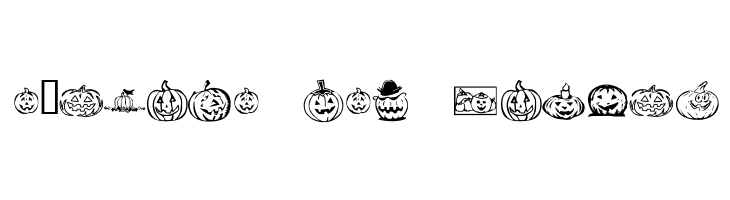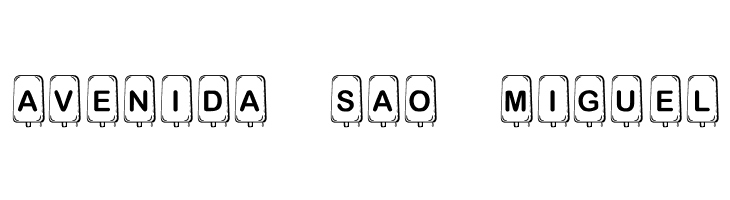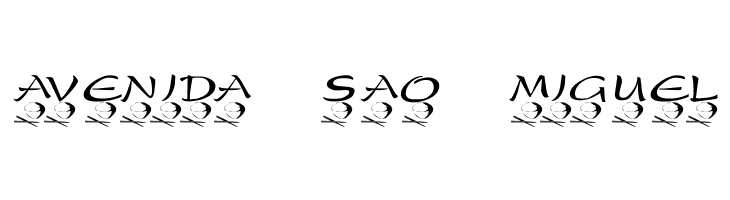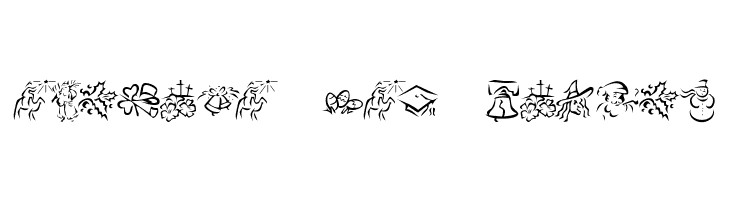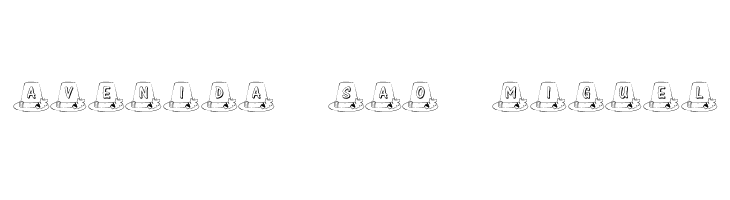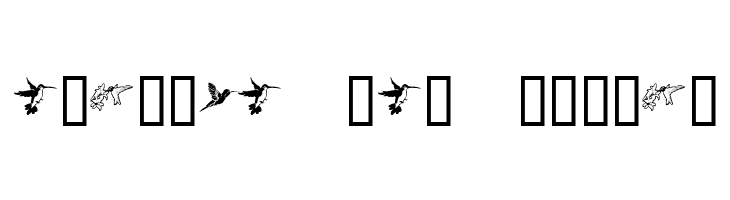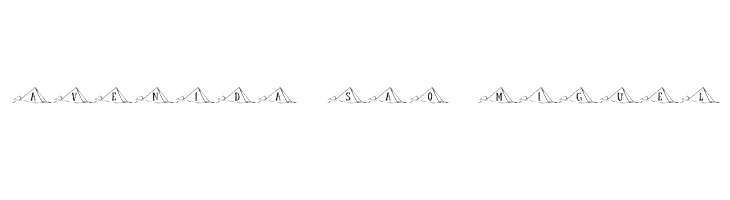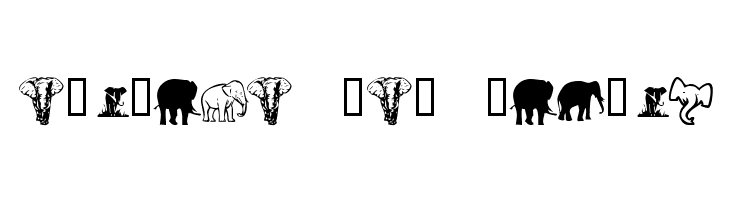
A decorative font with holiday-themed icons for various celebrations.
A Halloween-themed decorative font with pumpkin illustrations as glyphs.
A decorative font with letters inside pilgrim hats, perfect for festive projects.
A bold, shield-enclosed font with a heraldic style.
A playful font with characters inside popcorn boxes, perfect for fun and themed projects.
A playful font with letters inside popcorn buckets, perfect for entertainment themes.
A playful font with uppercase letters in popsicle-shaped outlines.
A playful font with characters encased in popsicle shapes, perfect for fun and creative projects.
A playful decorative font with letters inside pots of gold.
A playful decorative font with characters inside pots of gold.
A decorative font with letters inside crown motifs, perfect for regal-themed designs.
A decorative font with letters inside crown shapes, perfect for regal-themed projects.
A decorative font with letters embedded in pyramid-like designs.
A bold, decorative font with quilt-like patterns and serif elements.
A playful, chalkboard-style font with decorative square borders around each character.
A playful, decorative font with characters enclosed in textured squares, ideal for creative projects.
Elephant-themed decorative dingbat font with assorted illustrations.
A bold, playful font with characters enclosed in keycap-like shapes, offering a nostalgic yet modern appeal.
A decorative font with uppercase letters in nail polish bottle shapes.
A decorative font with star-like embellishments and bold characters.
A bold serif font with twinkling star embellishments, perfect for decorative use.
A decorative font featuring detailed hummingbird illustrations.
A decorative set of hummingbird illustrations for creative projects.
A decorative script font with scalloped frames around each character.
A playful, decorative font with rice bowl and chopstick motifs.
A decorative serif font with floral-bordered characters, ideal for elegant designs.
A decorative serif font with letters encased in floral-patterned circles.
An artistic font with floral motifs and elegant script characters.
A bold, sans-serif font with each character encased in a decorative, jagged circular border.
A decorative font with bold letters encased in intricate circular frames.